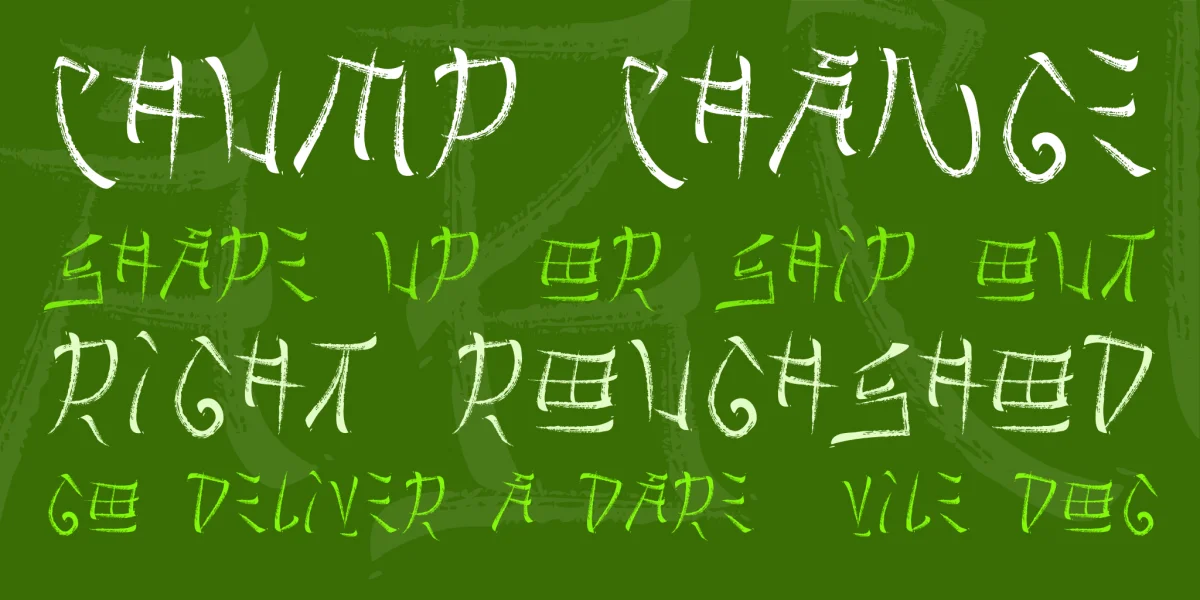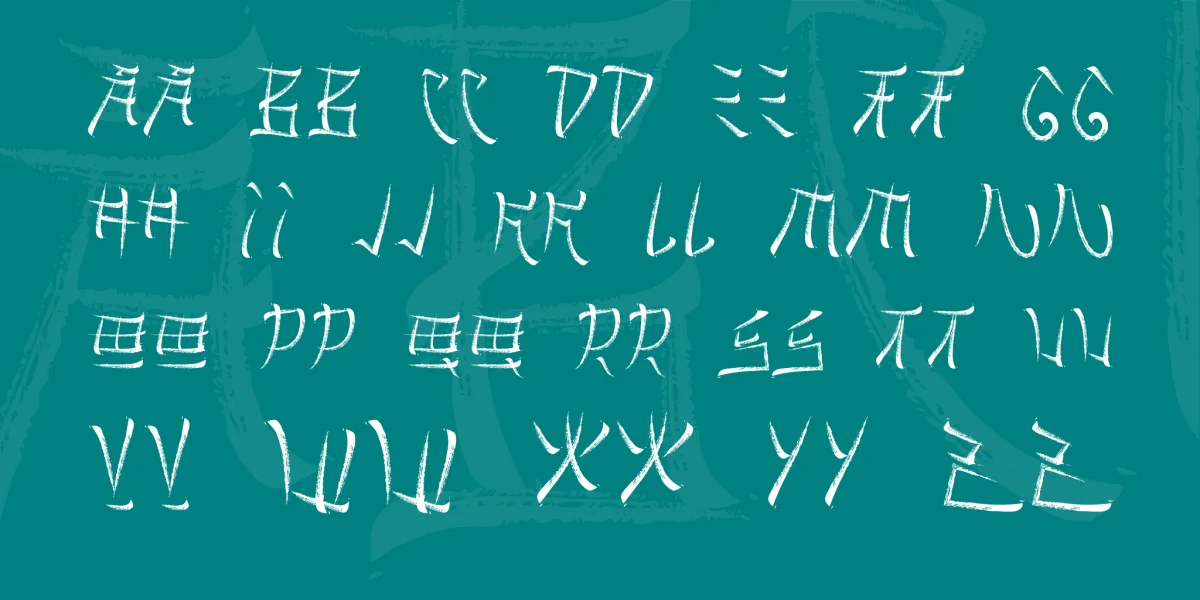
BRUSHIDO is an experiment on making a font look like japanese lettering with brush. It contains only letters A-Z. This font is free for PERSONAL use only. For any commercial use (anything you make money from), you must send a paypal donation to . I am open to develop this further on request like numbers and accents maybe modifications on letters for better readability. So feel free to give me feedback and any other question you can contact me via